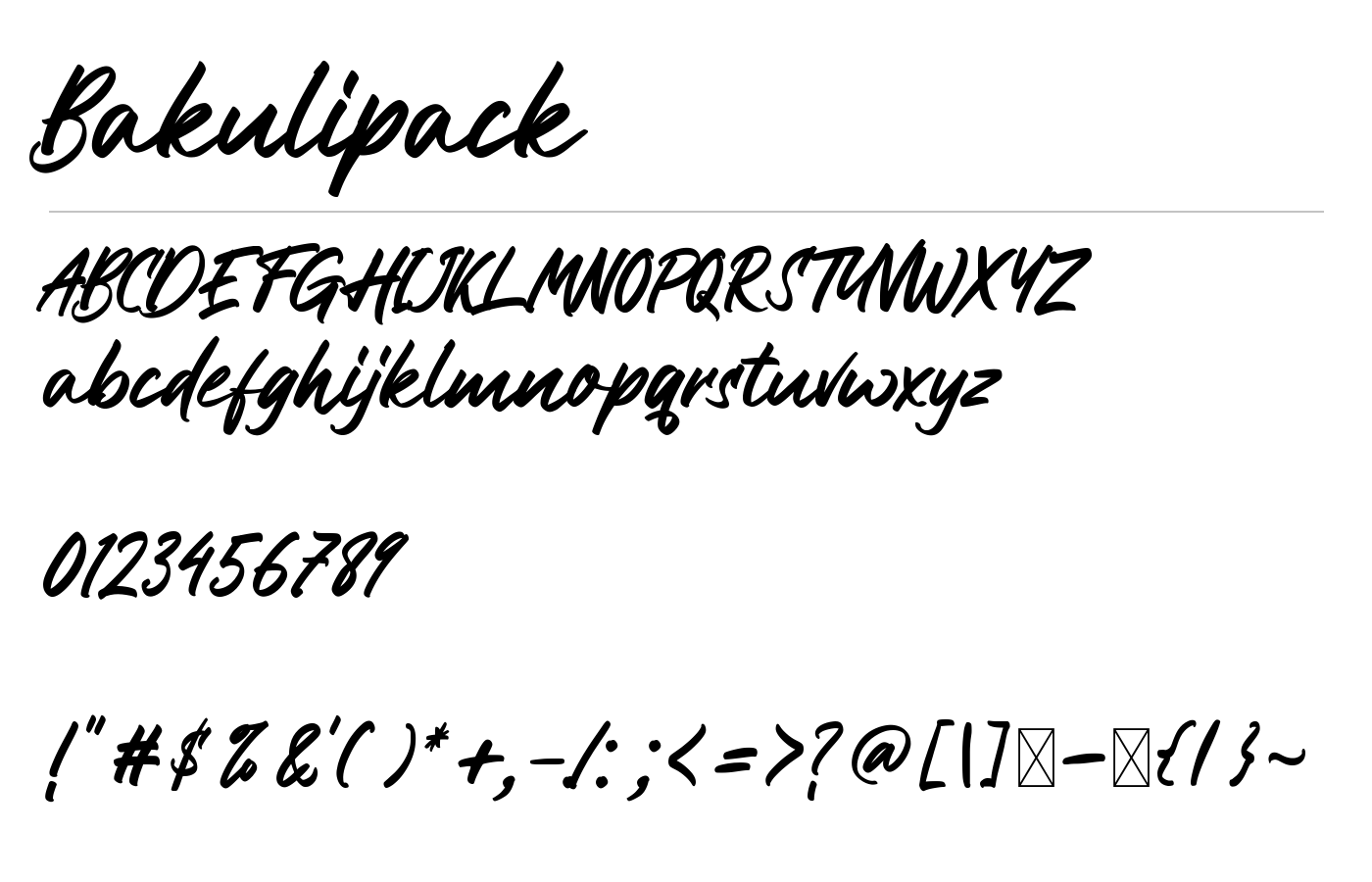
Bakulipack is a lively, brush-script font that combines the casual feel of handwritten letters with a bold, confident style. Its smooth, flowing strokes and moderate contrast make it great for informal branding, packaging, and creative headlines where a personal, energetic touch is desired. This font works well in designs that want to evoke friendliness and approachability while maintaining a sense of style and movement.
Bakulipack Font
About Bakulipack Font
| Font family | Bakulipack Font |
| Designer | Ikrar Bey Khubaib |